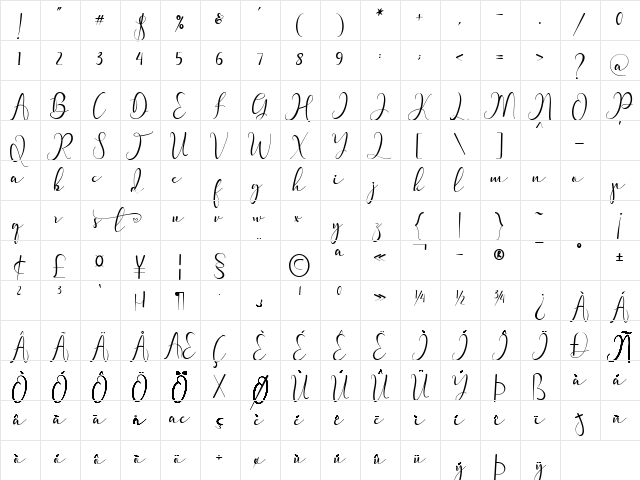
Pretty Willie Regular
| Designer | Yogaletter 2020 (Isroni Yoga Prasetya) |
Design Context for Pretty Willie Typeface
Pretty Willie is a composed and adaptable typeface that performs quietly and consistently across a wide range of design contexts.